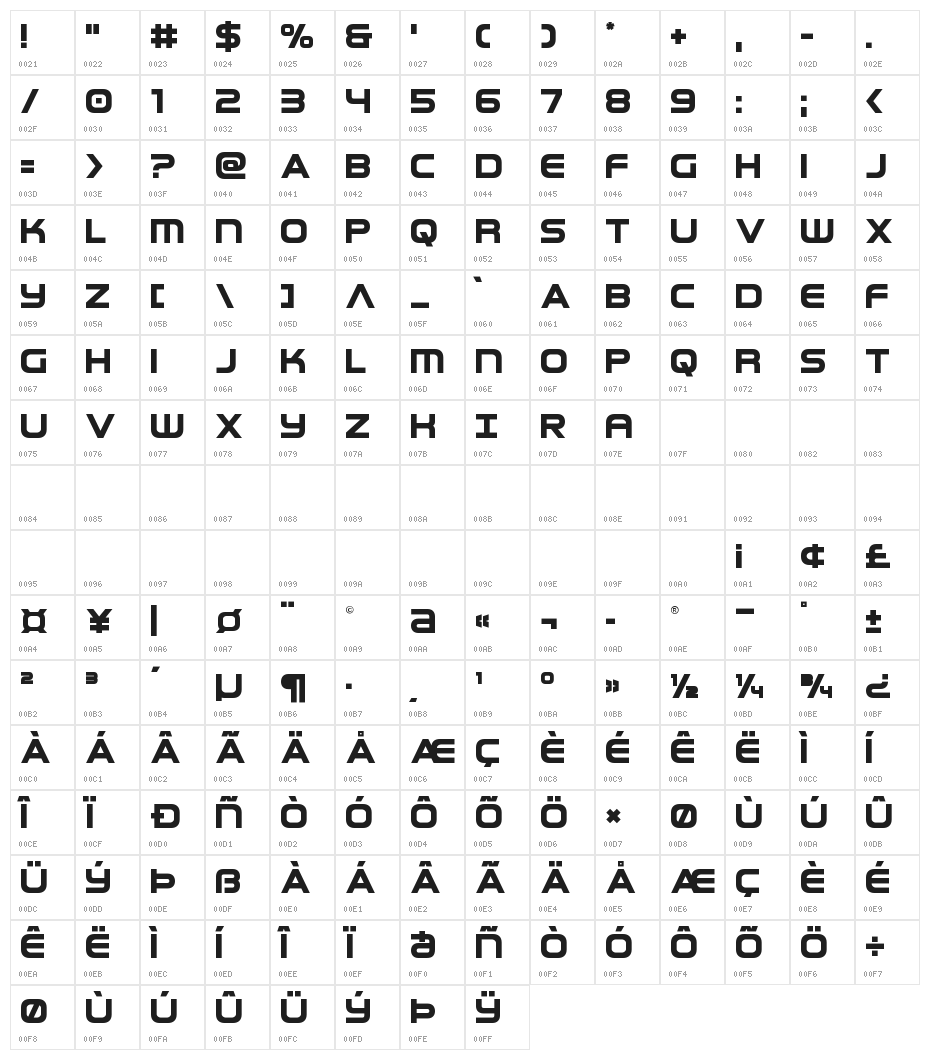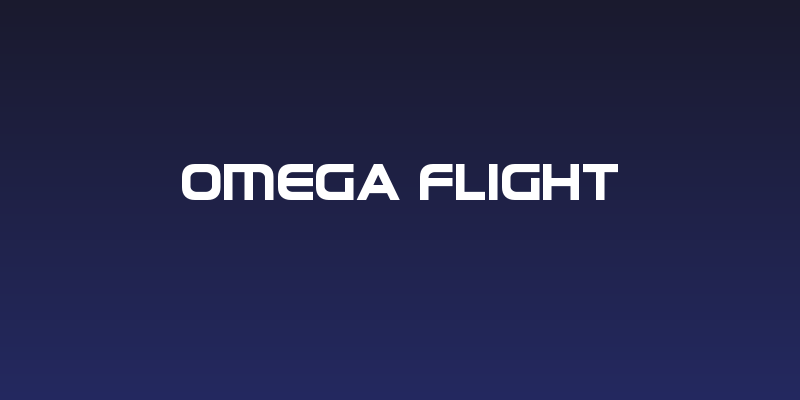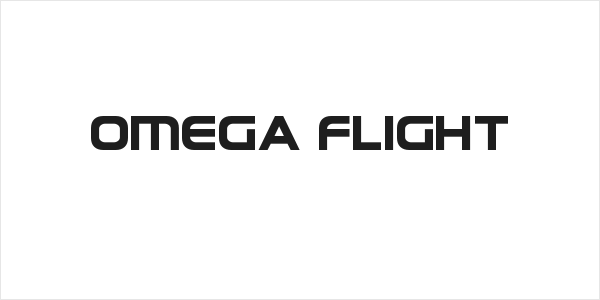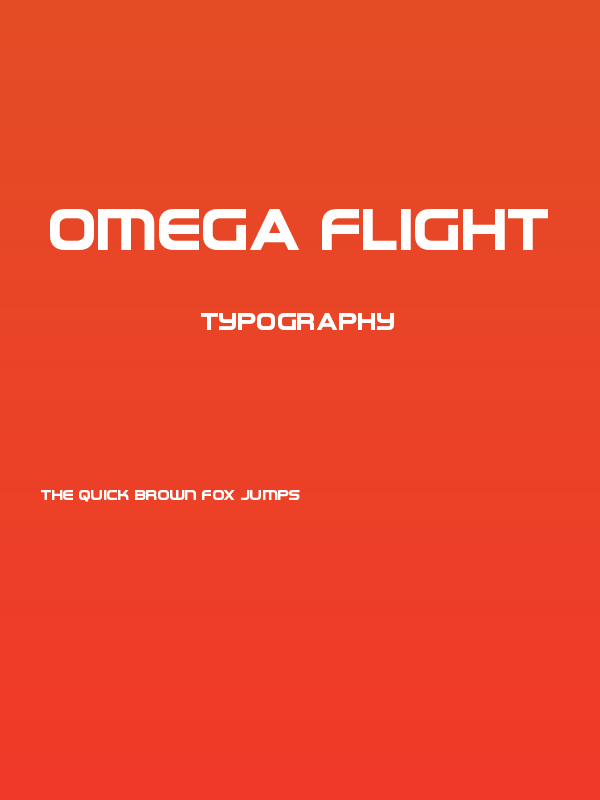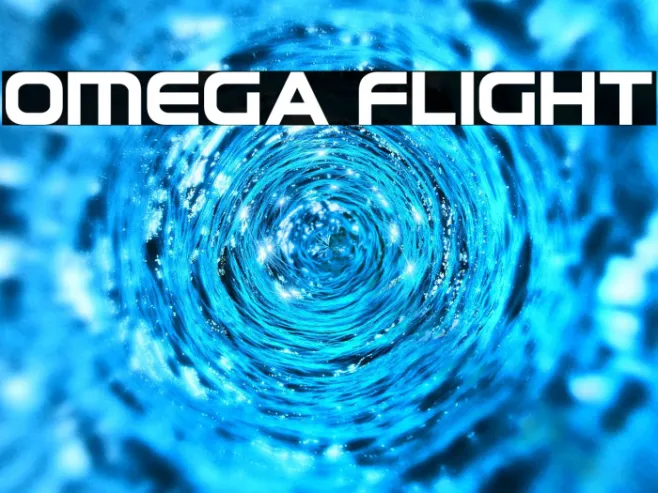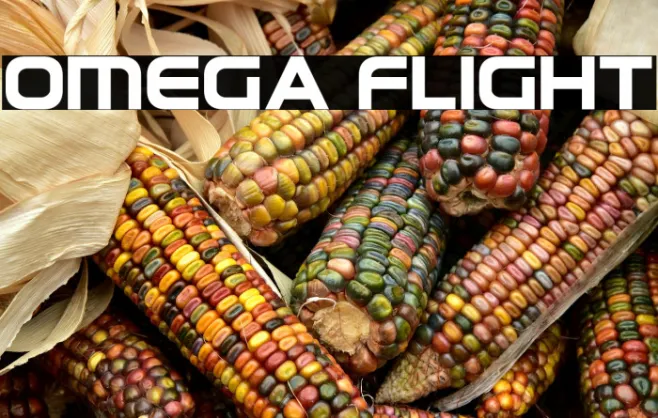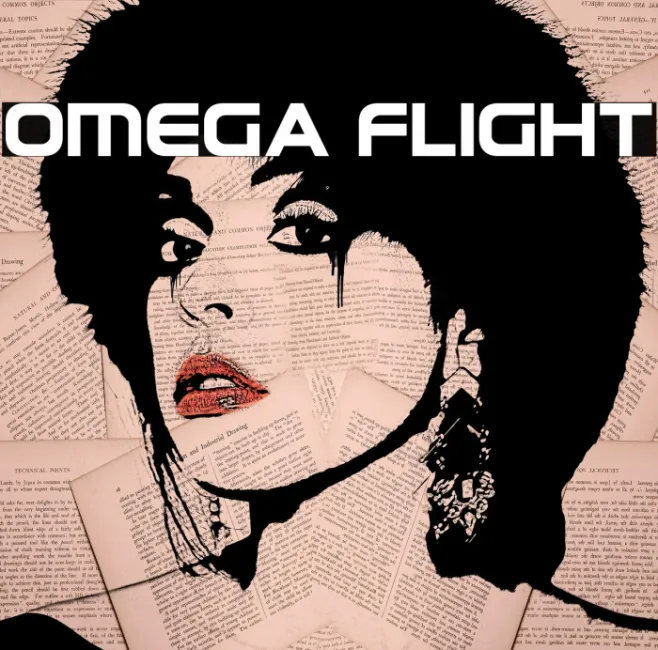
Omega Flight Font
Omega Flight Description
This font features a bold, geometric design with a futuristic and modern aesthetic. The characters are constructed with clean, straight lines and sharp angles, giving it a sleek and technical appearance. The uppercase and lowercase letters maintain a consistent style, with a uniform width and height that enhances readability. The numerals and special characters are designed to match the overall aesthetic, ensuring a cohesive look across all text elements. This font is ideal for projects that require a contemporary and cutting-edge feel, such as technology branding, sci-fi themes, or modern advertising.
OMEGA-FLIGHT UPPERCASE
OMEGA-FLIGHT LOWERCASE
OMEGA-FLIGHT OTHER CHARS
| Use Case | Headlines, Logos, Digital Interfaces |
| Proposed Projects | Ideal for technology branding, sci-fi themes, modern advertising, and digital interfaces. |